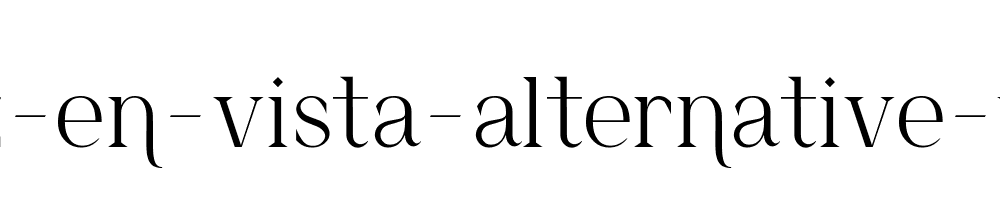
hv-feliz-en-vista-alternative-webfont
About hv-feliz-en-vista-alternative-webfont
The hv-feliz-en-vista-alternative-webfont is a typeface oozing with personality and charm, boasting unique characteristics that make it stand out in a sea of mundane fonts. The inviting APERTURE and playful ARC give it a friendly and approachable feel, perfect for adding a touch of warmth to any design project. The ASCENDER and DESCENDER are elegantly proportioned, adding a sense of balance and grace to each letterform. The closed COUNTER lends a sense of solidity and strength, while the open COUNTER adds a whimsical touch, creating a delightful contrast. The smooth, flowing lines of this font’s ARM and LINK/NECK add a sense of fluidity and movement, making it a versatile choice for a wide range of design applications. The elegant BRACKET and classic SERIF details add a touch of sophistication, making it ideal for projects where a touch of refinement is needed. The bold SPINE and sturdy STEM convey a sense of stability and reliability, while the subtle FINIAL and intricate LIGATURE details add a touch of intricacy and depth. The font’s overall structure is solid and well-balanced, with just the right amount of flair to make it truly memorable. In terms of classification, the hv-feliz-en-vista-alternative-webfont falls under the filter of Friendly – Elegant, striking the perfect balance between approachability and sophistication. Its warm and inviting nature makes it a versatile choice for a wide range of design projects, from branding to editorial design. Whether you’re looking to add a touch of whimsy to your next project or convey a sense of timeless elegance, this font has got you covered. Embrace the charm and versatility of the hv-feliz-en-vista-alternative-webfont and elevate your designs to new heights.